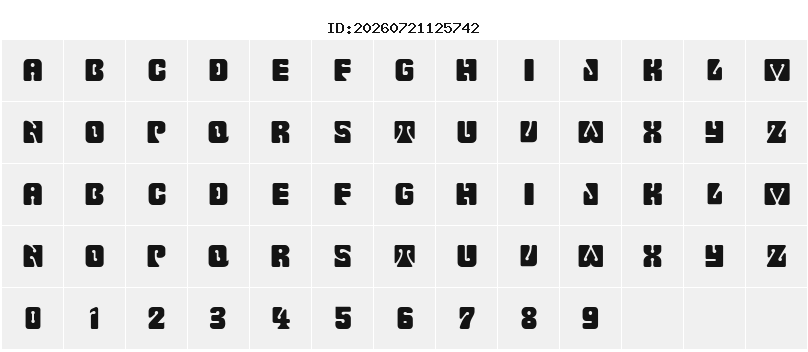
Fillmore Preview
• Font Name: Fillmore
• Full Font Name: Fillmore Regular
About Fillmore.ttf
Fillmore.ttf is a modern, elegant sans-serif font designed for ultimate readability and visual harmony. Perfect for branding, headlines, web design, and print materials.